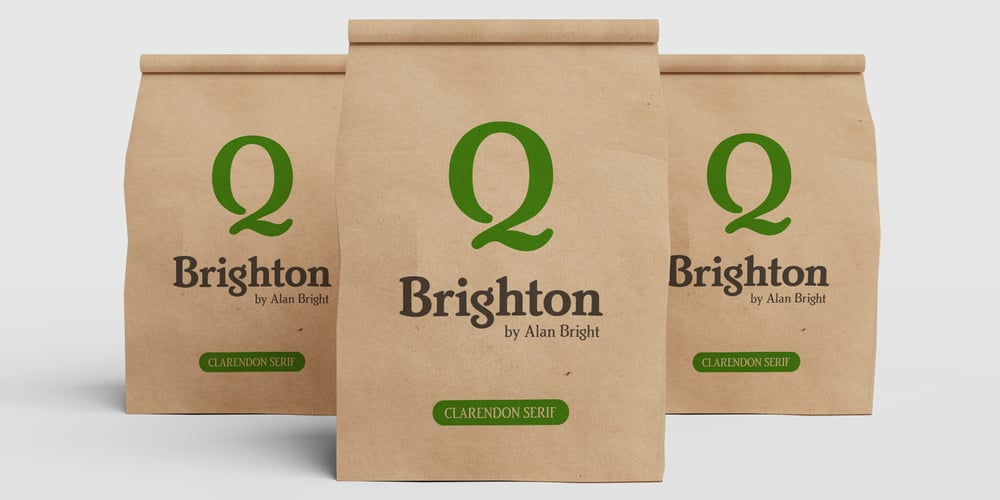
Brighton Font Family was designed by Alan Bright and published by ITC. Brighton contains 3 styles and family package options. Brighton was designed by Alan Bright with a feeling of warmth in the design. Its charm lies in the simple construction of its letterforms which makes it suitable for nearly any typographic requirement.